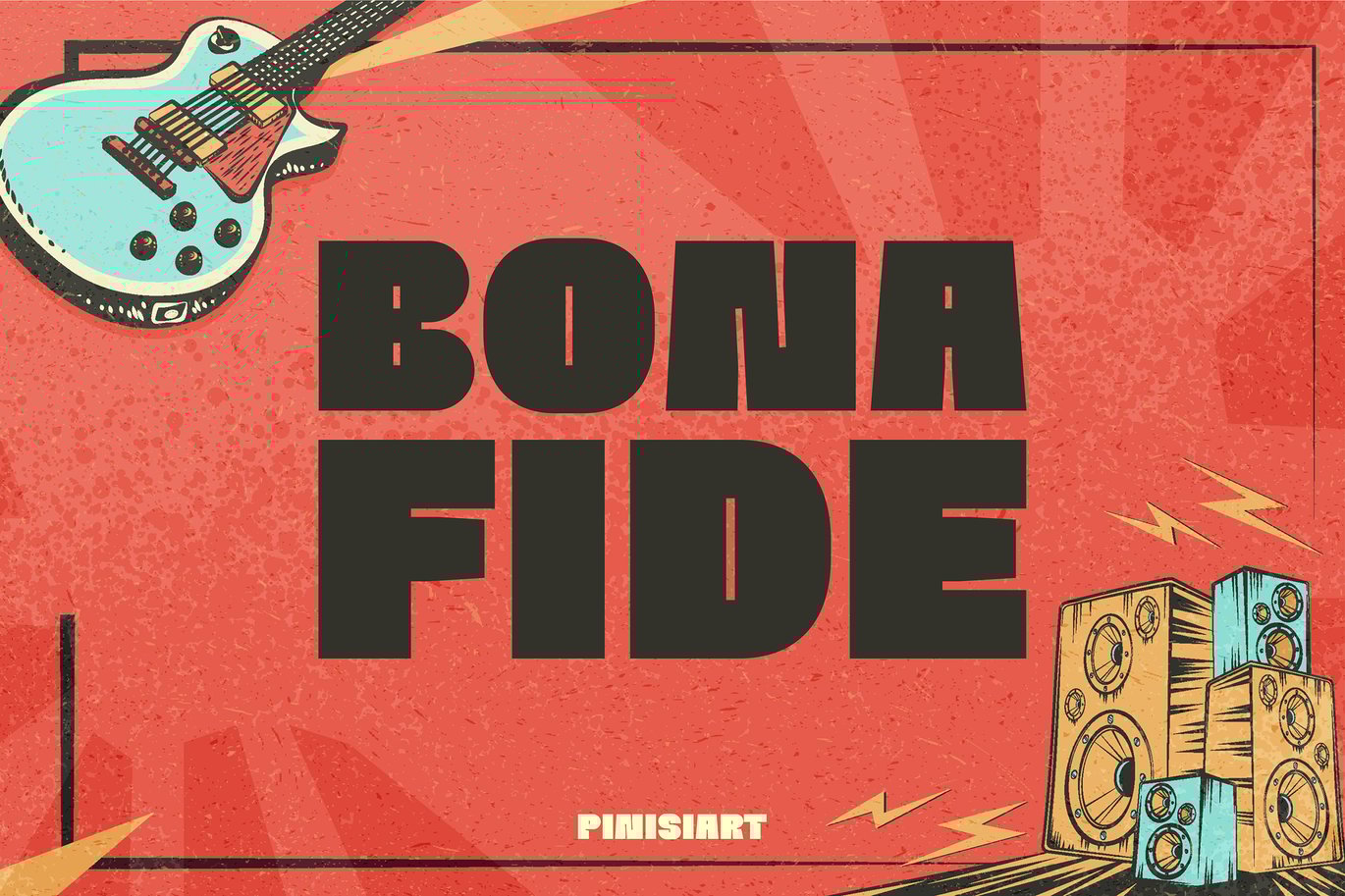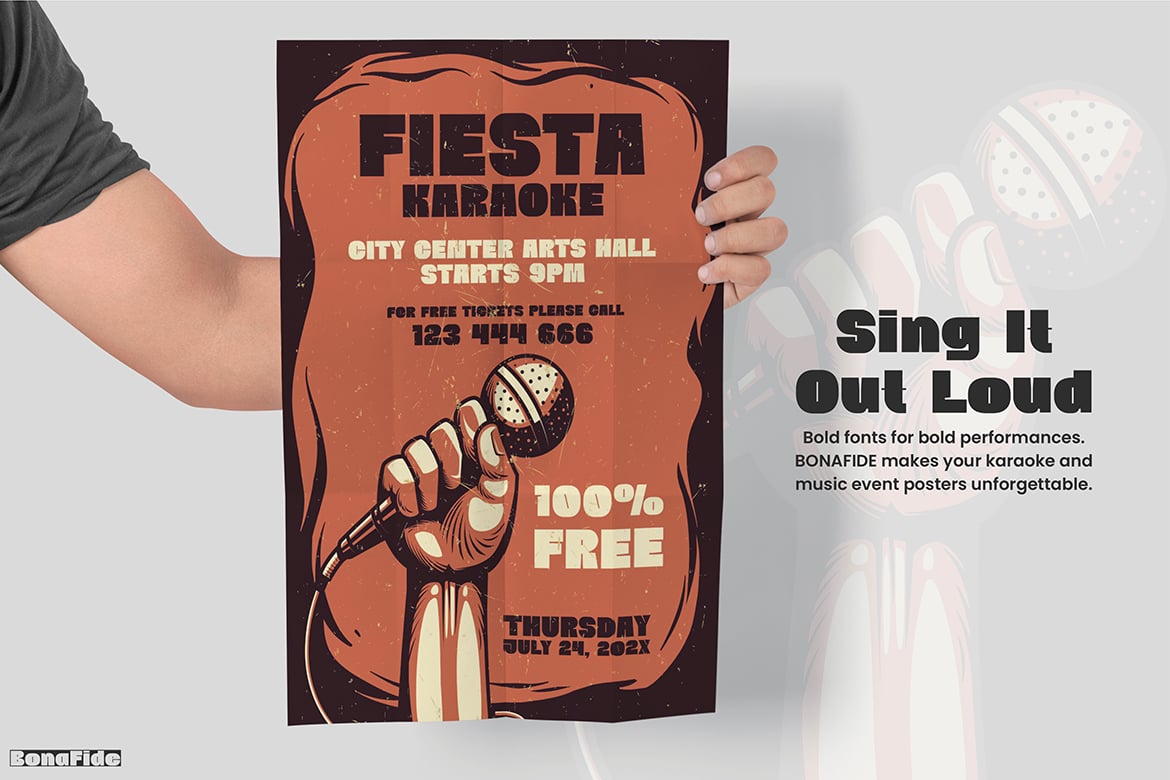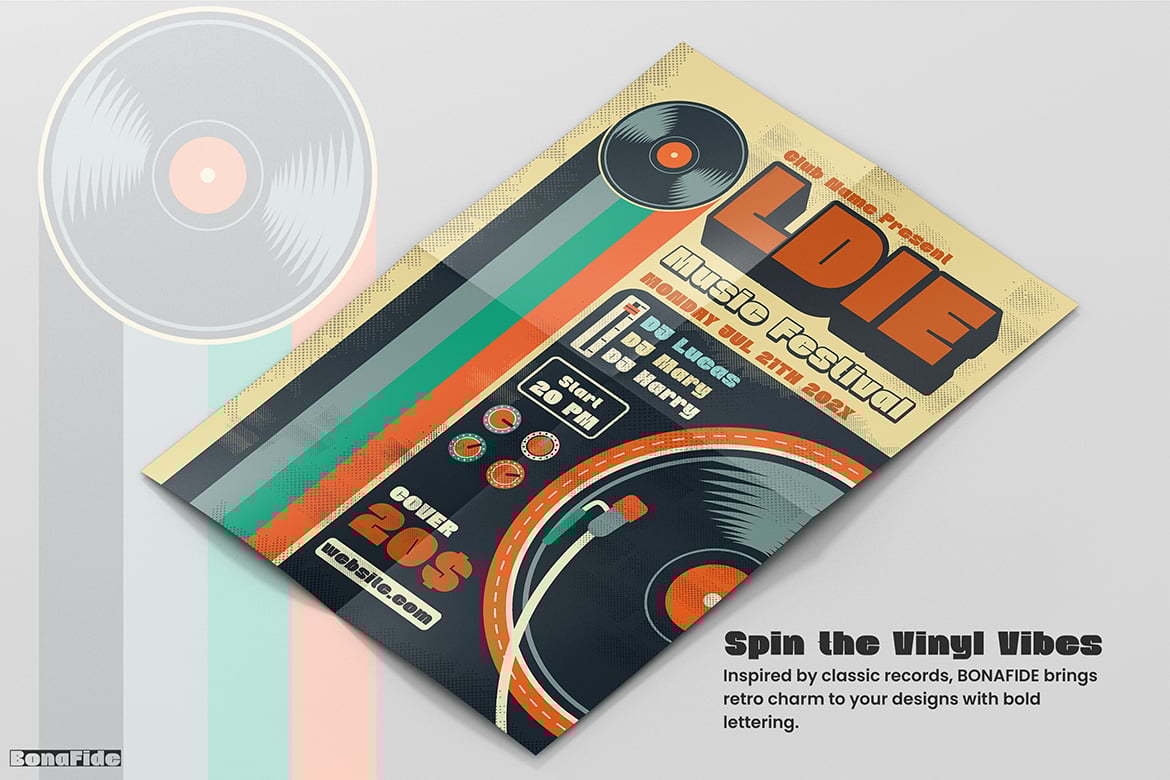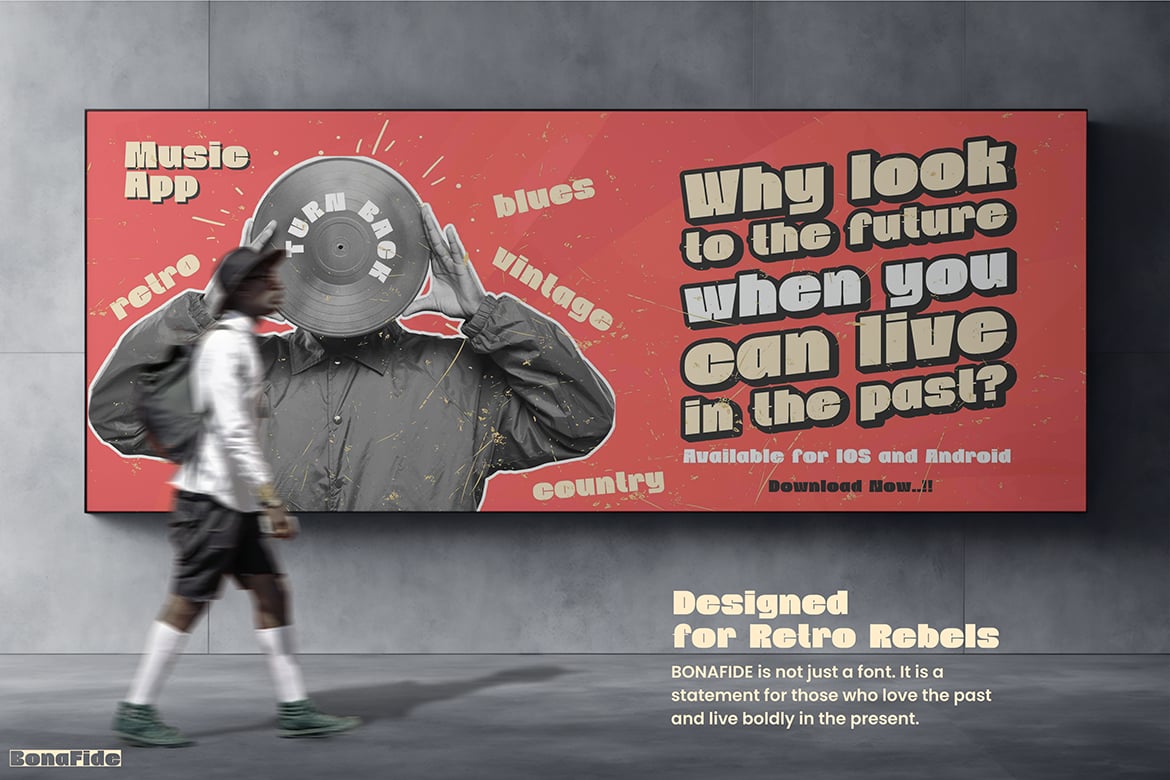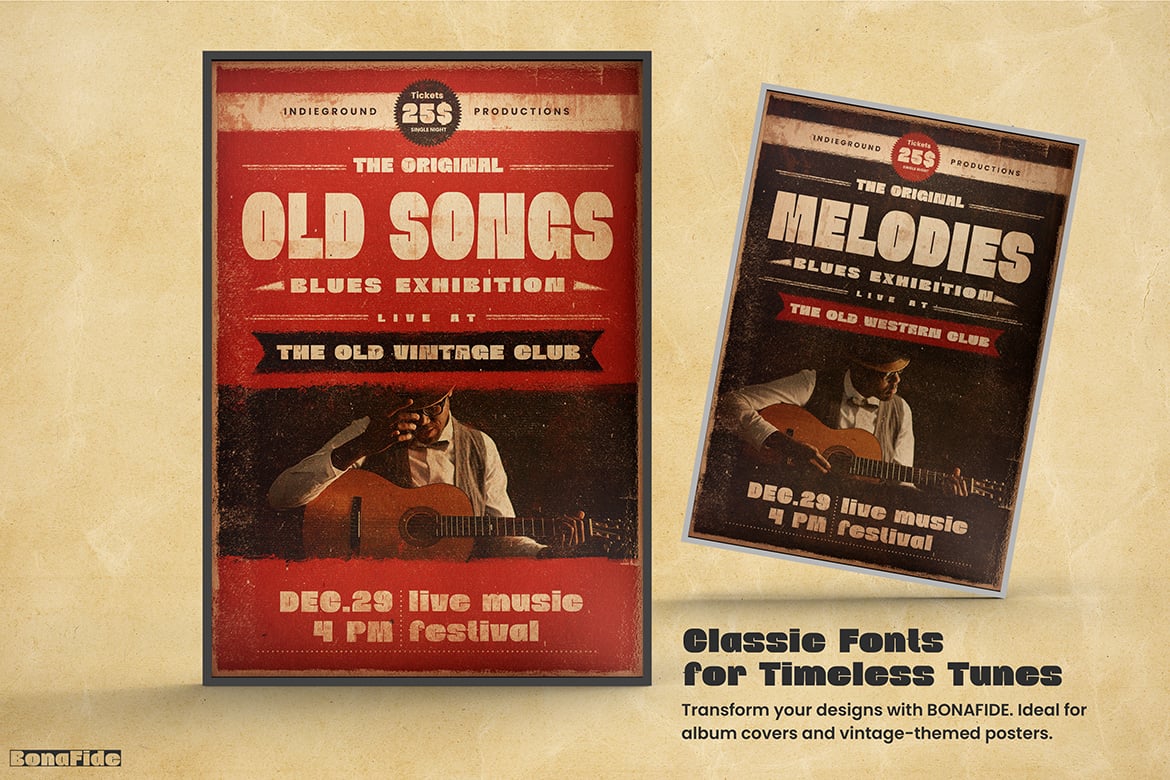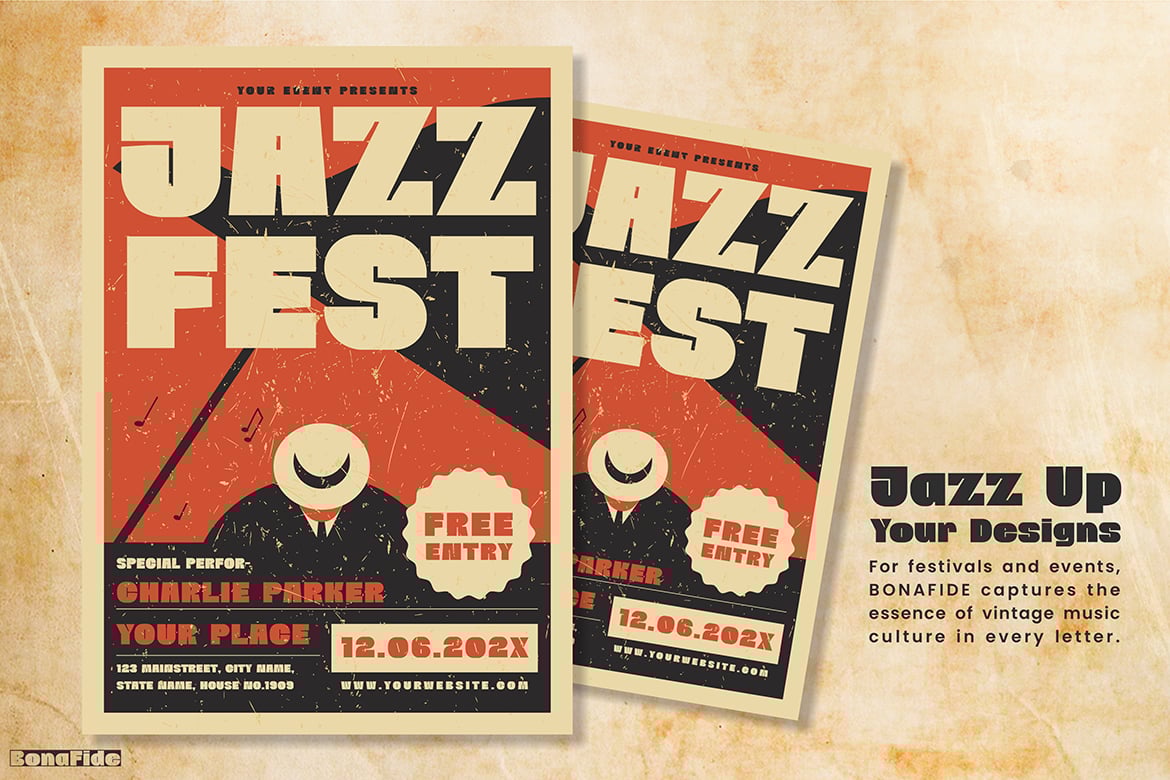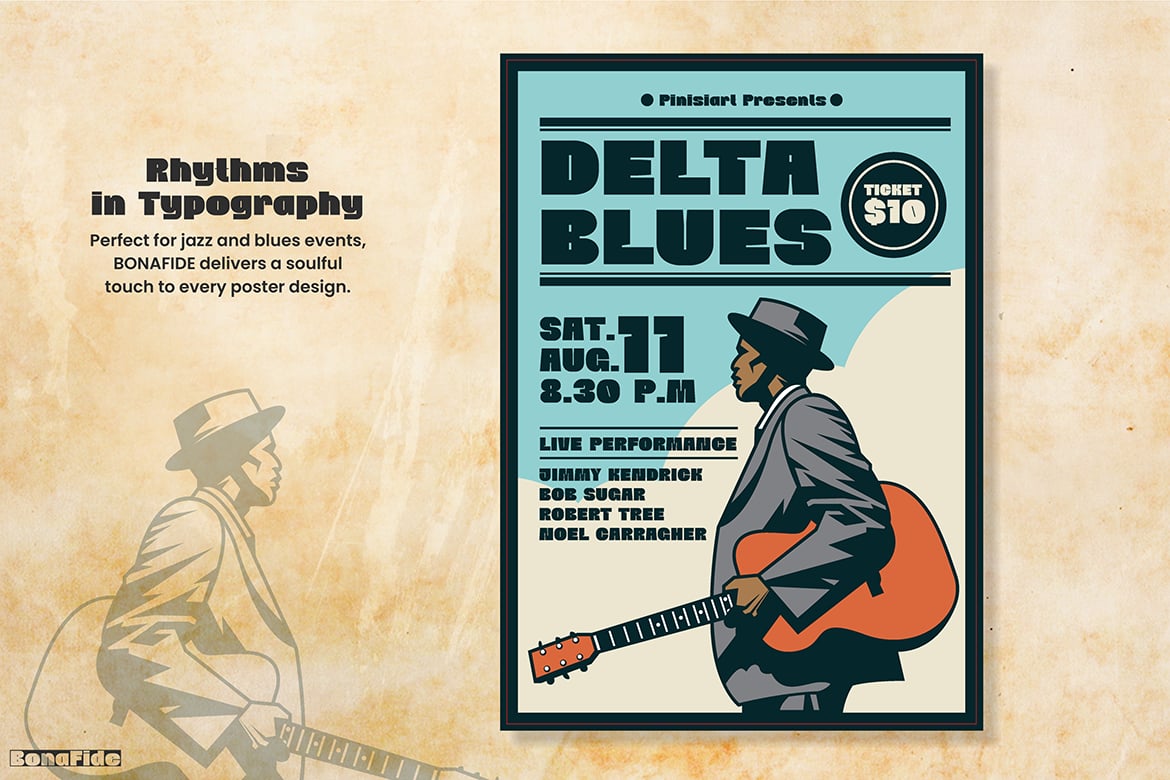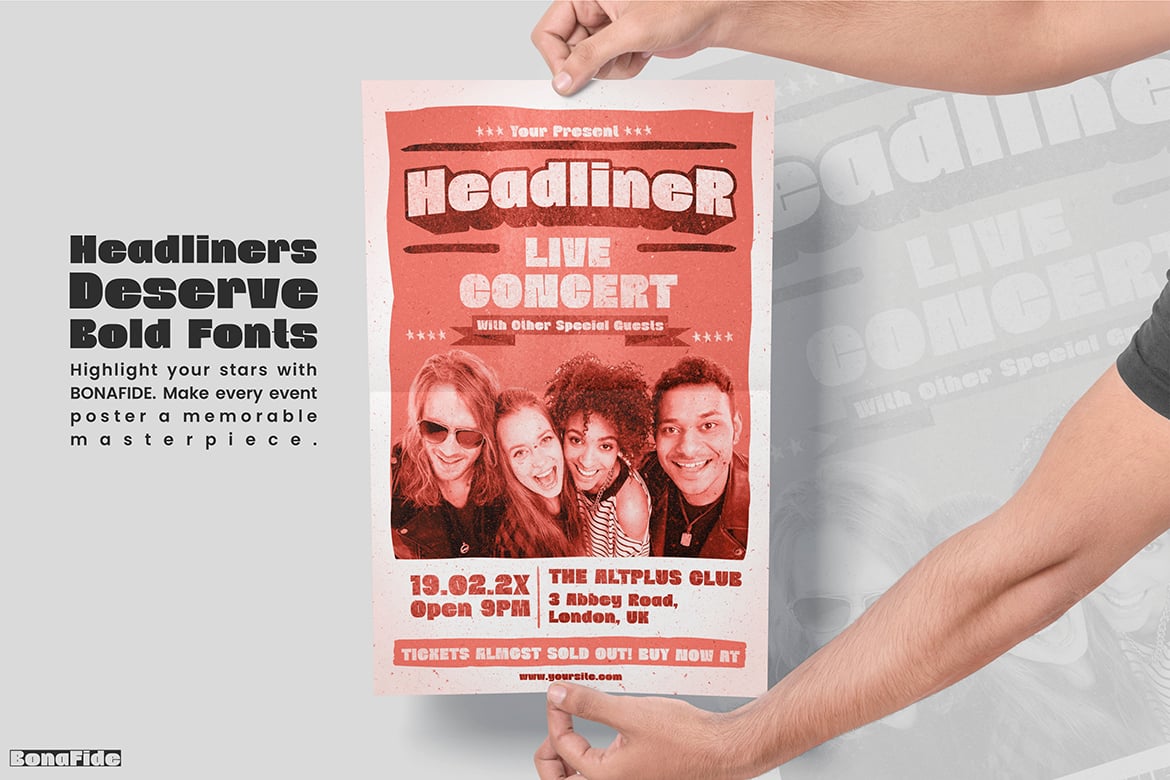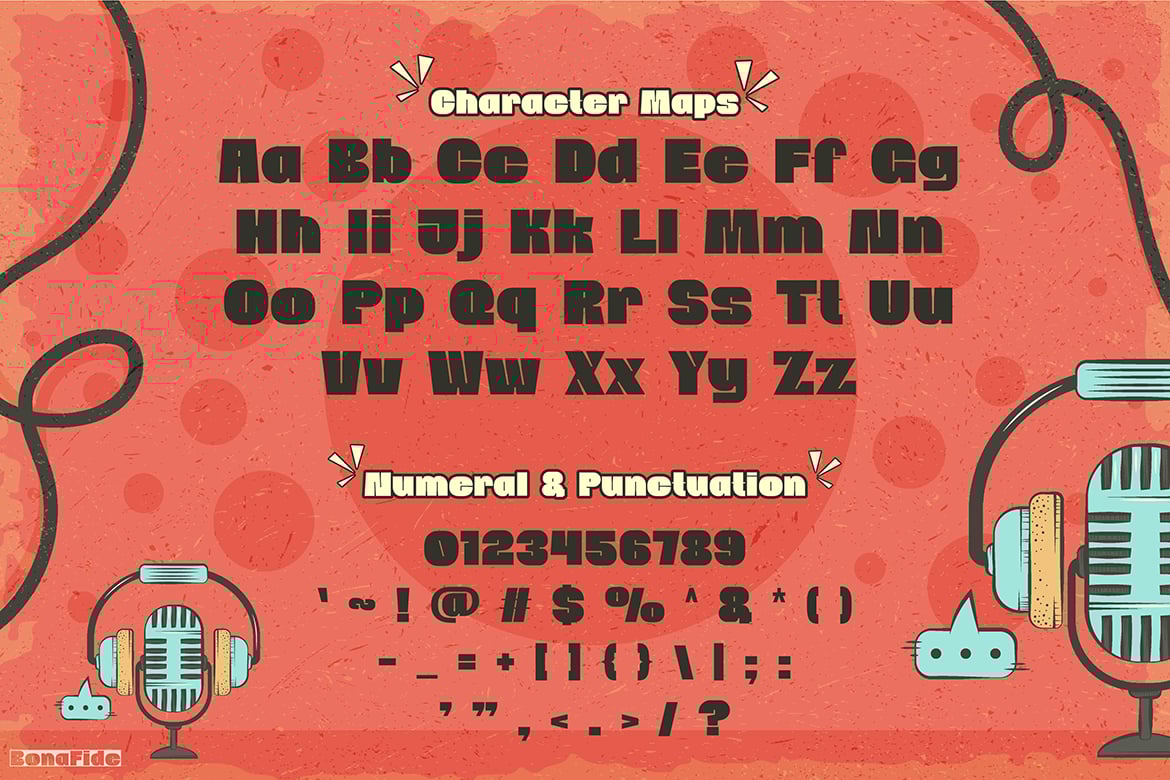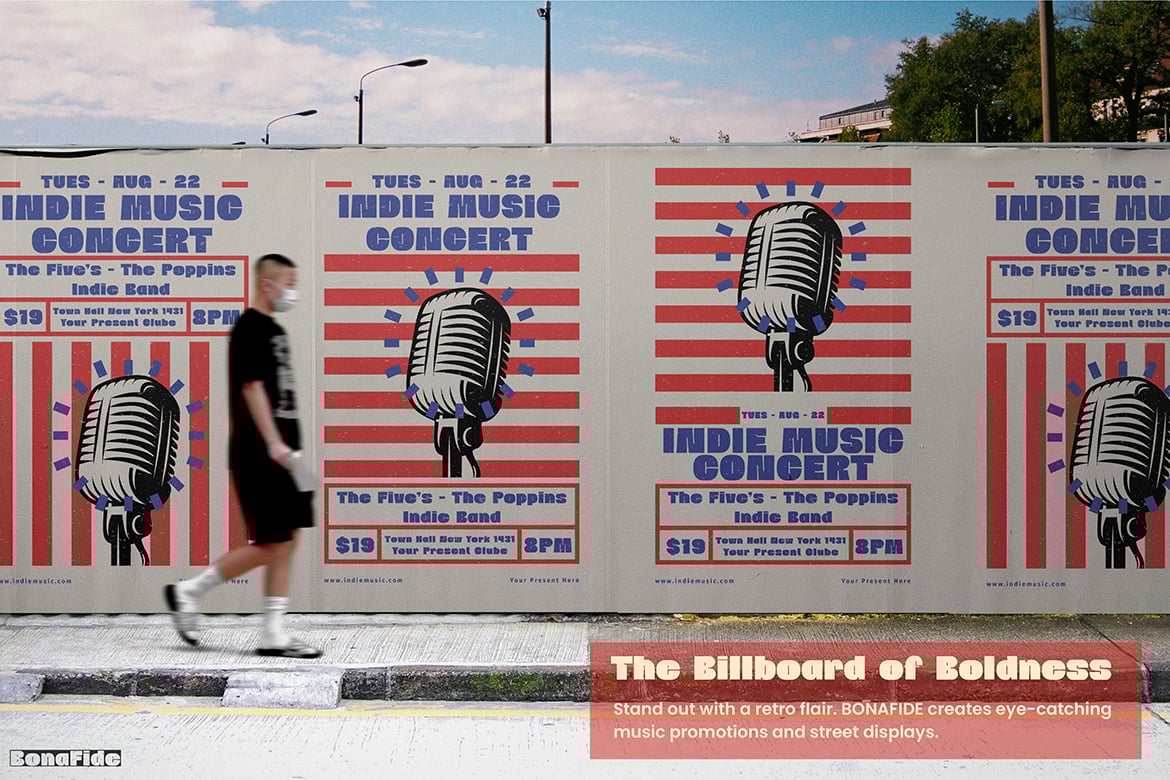
Retro Font – Bonafide
Bonafide is a timeless, vintage-inspired serif font that exudes classic elegance with a touch of old-world charm. With its refined serifs and balanced proportions, this font evokes the sophistication of bygone eras while remaining fresh and modern. Bonafide’s luxurious yet approachable design makes it ideal for projects that need to convey both heritage and style.
Market Applications
Luxury Branding & High-End Fashion
Bonafide is perfect for luxury brands and fashion labels that want to evoke a sense of tradition and exclusivity. Use it in logos, branding materials, and packaging to add a timeless, elegant touch.
Vintage Packaging & Label Design
Perfect for vintage-inspired product packaging, from artisan foods to premium beverages, Bonafide gives a classic feel to labels and bottles, appealing to customers who appreciate craftsmanship and heritage.
Editorial Design & Magazines
Ideal for high-end editorial publications, especially those focused on fashion, lifestyle, or vintage themes. Bonafide’s elegant serifs and balanced design add sophistication to headings, articles, and layouts.
Wedding Invitations & Event Stationery
Bonafide brings a sense of elegance and timeless beauty to wedding invitations, save-the-dates, and event stationery. Its classic style fits perfectly with vintage or formal celebrations.
Branding for Heritage & Artisan Products
Bonafide’s vintage feel makes it ideal for businesses focused on handcrafted goods or artisanal products. Whether you’re selling bespoke furniture, handmade jewelry, or organic skincare, this font will give your brand an authentic, refined presence.